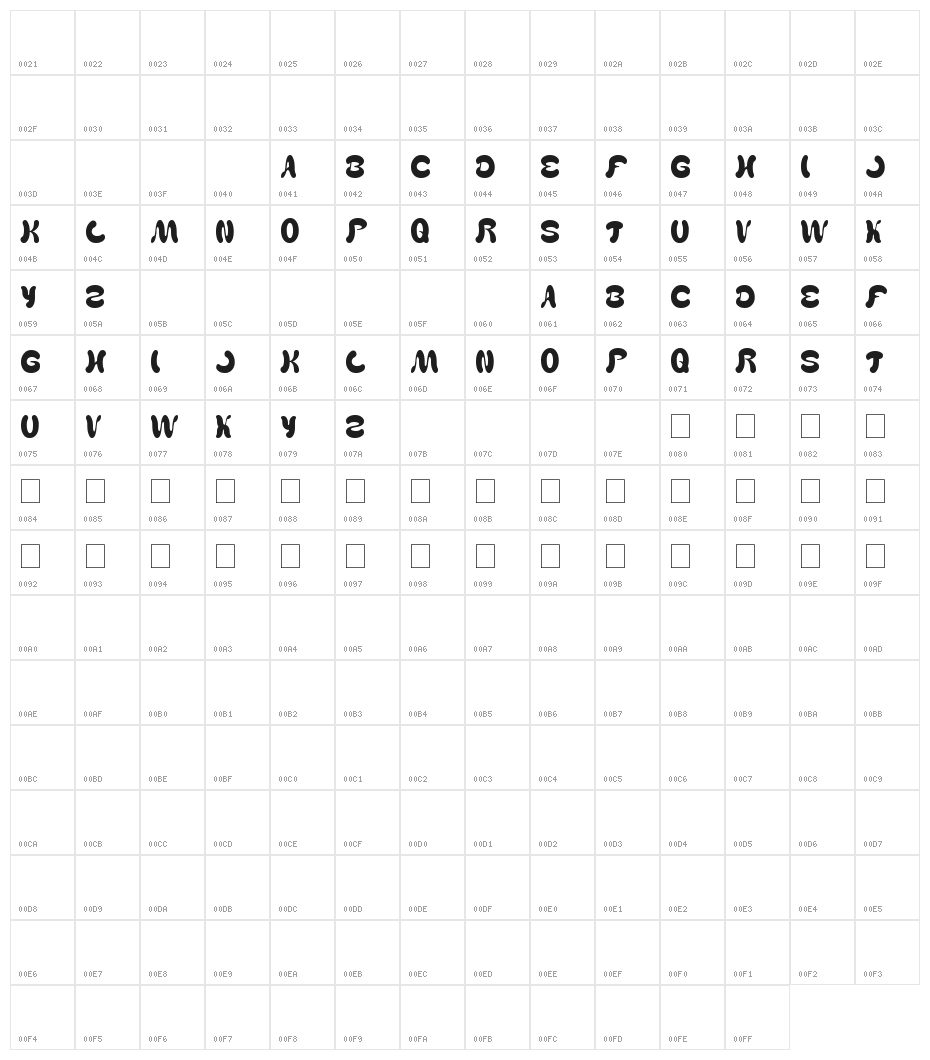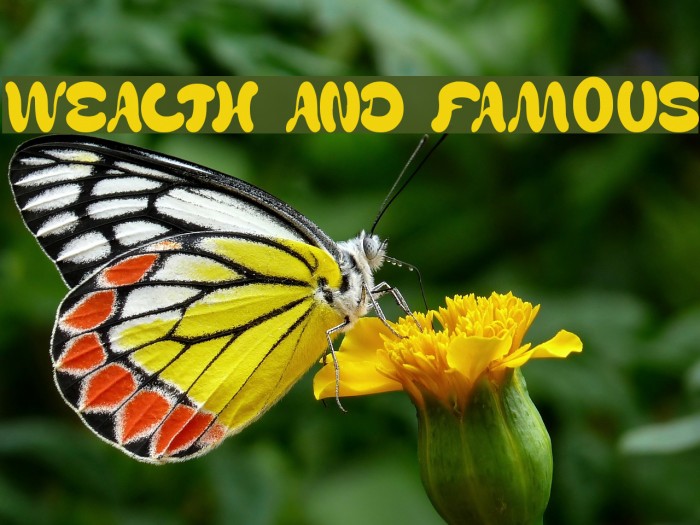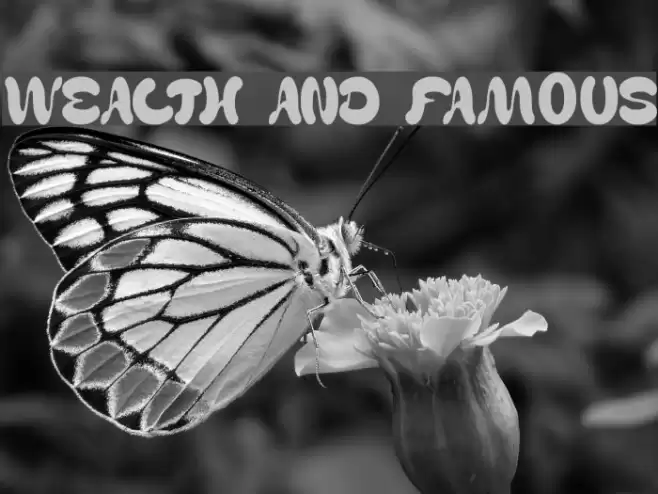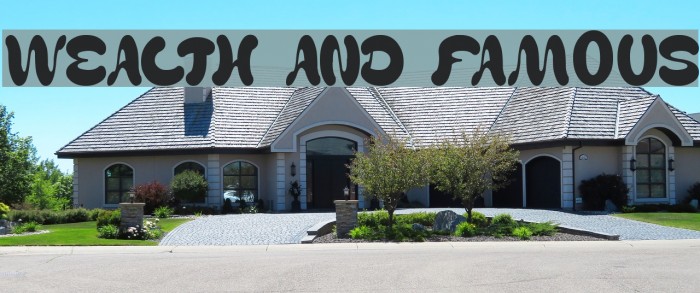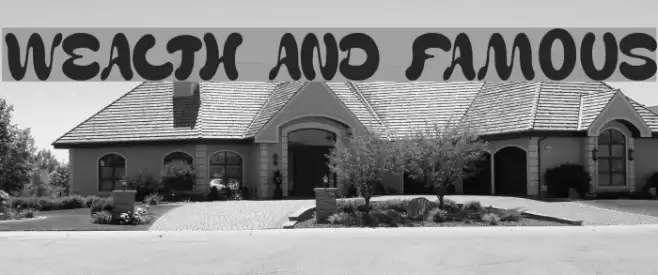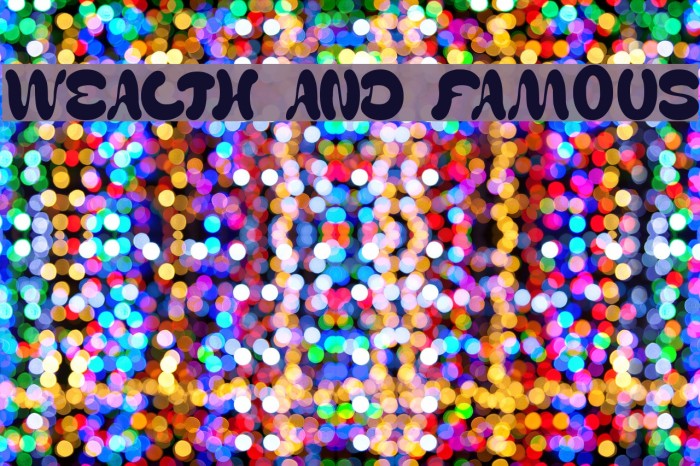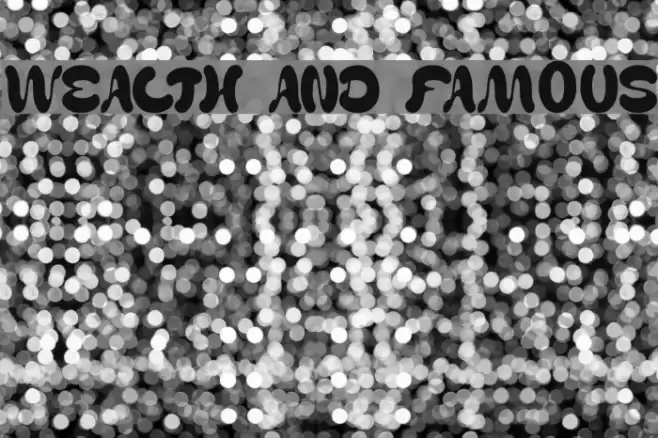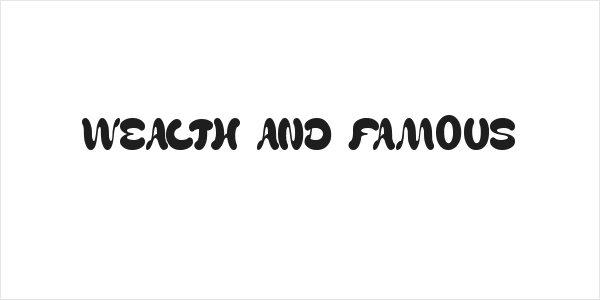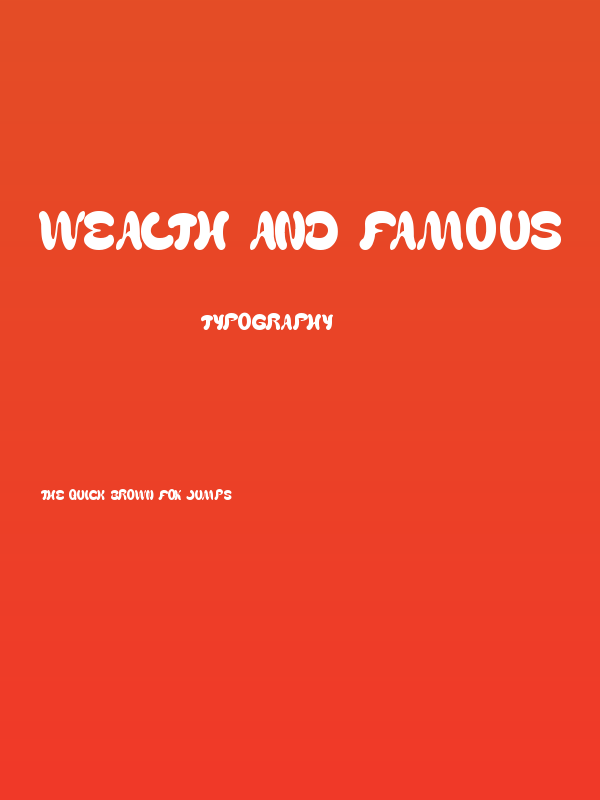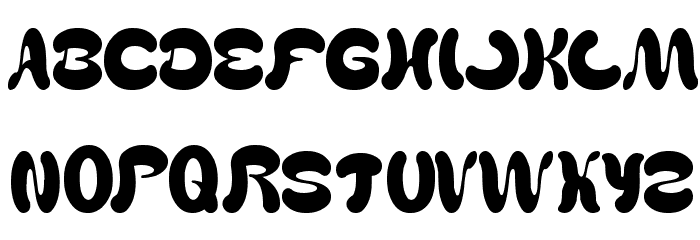
WEALTH AND FAMOUS Font
WEALTH AND FAMOUS Description
This font features a bold and playful design with thick, rounded strokes that create a sense of fun and whimsy. The characters are highly stylized, with exaggerated curves and a bubbly appearance that makes them stand out. The uppercase letters are particularly eye-catching, with a consistent weight that adds to the font's overall boldness. The font's unique style makes it suitable for projects that require a touch of creativity and flair. Its distinctiveness ensures that it captures attention, making it ideal for headlines or branding that seeks to convey a lively and energetic vibe.